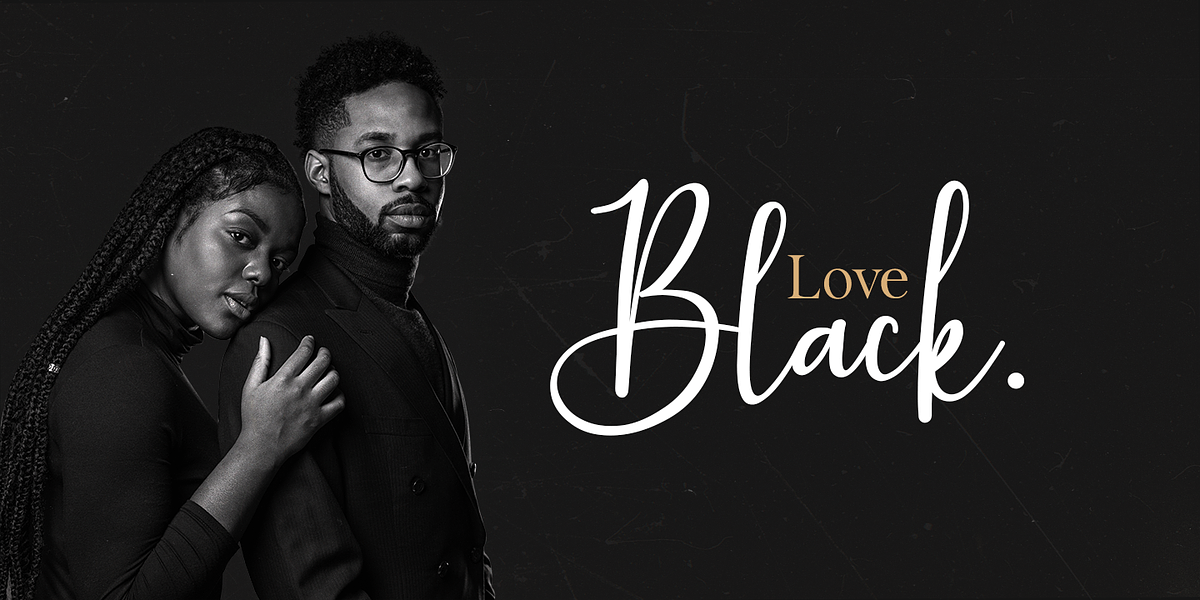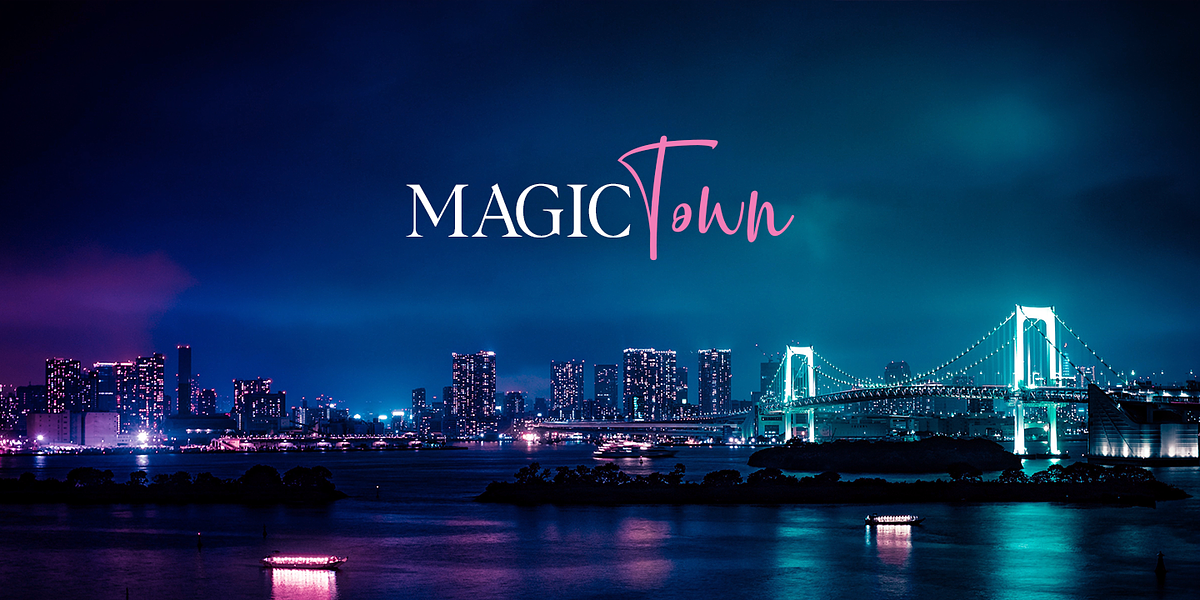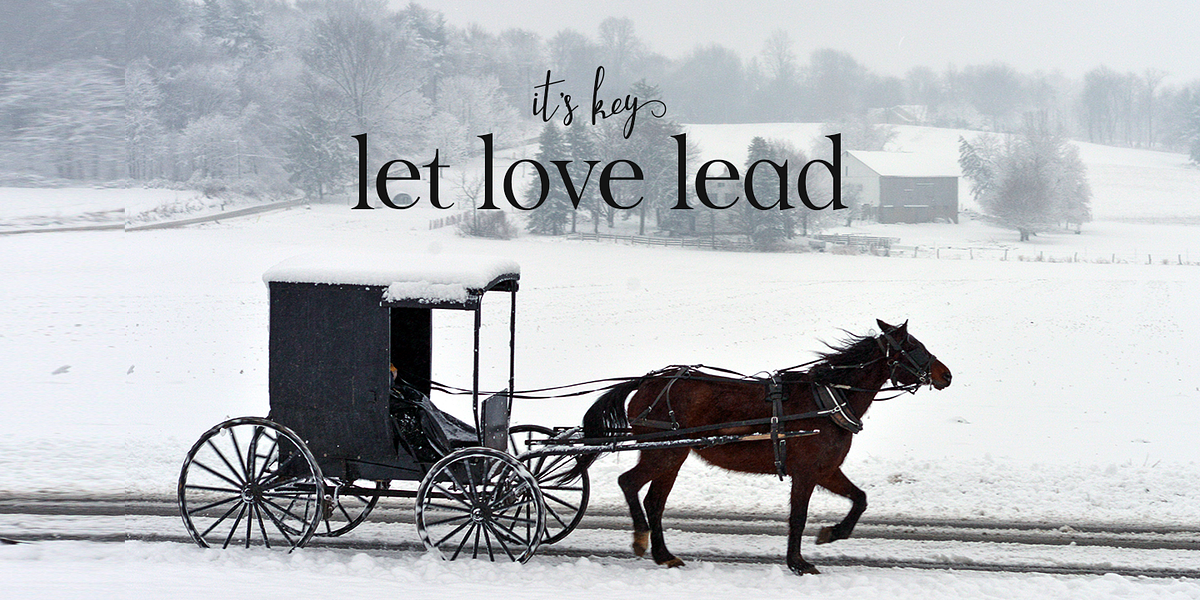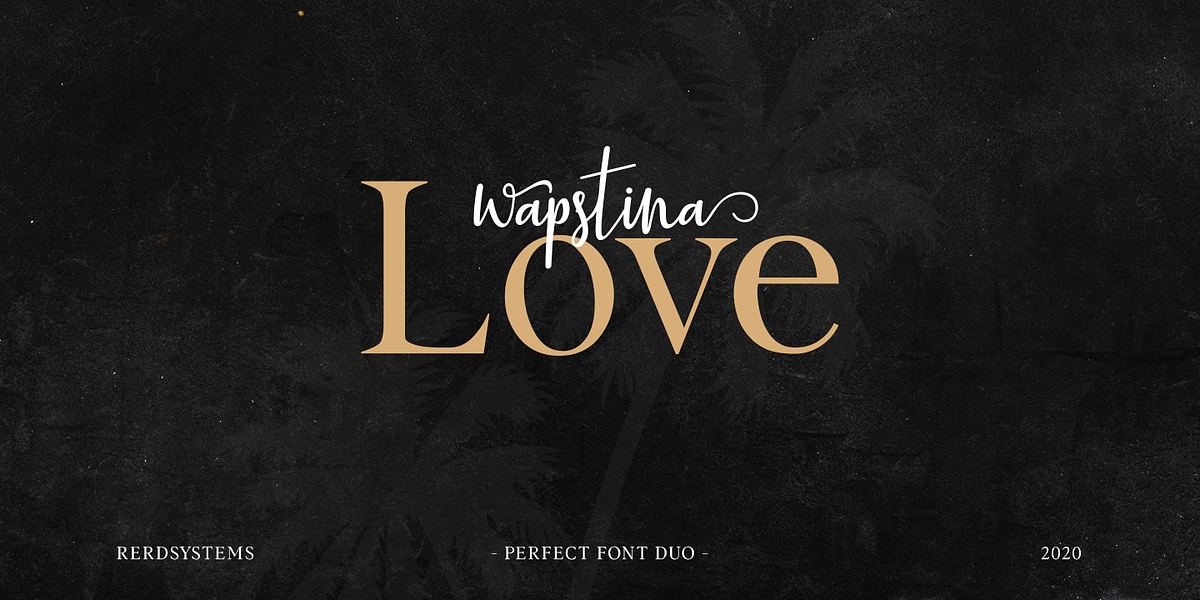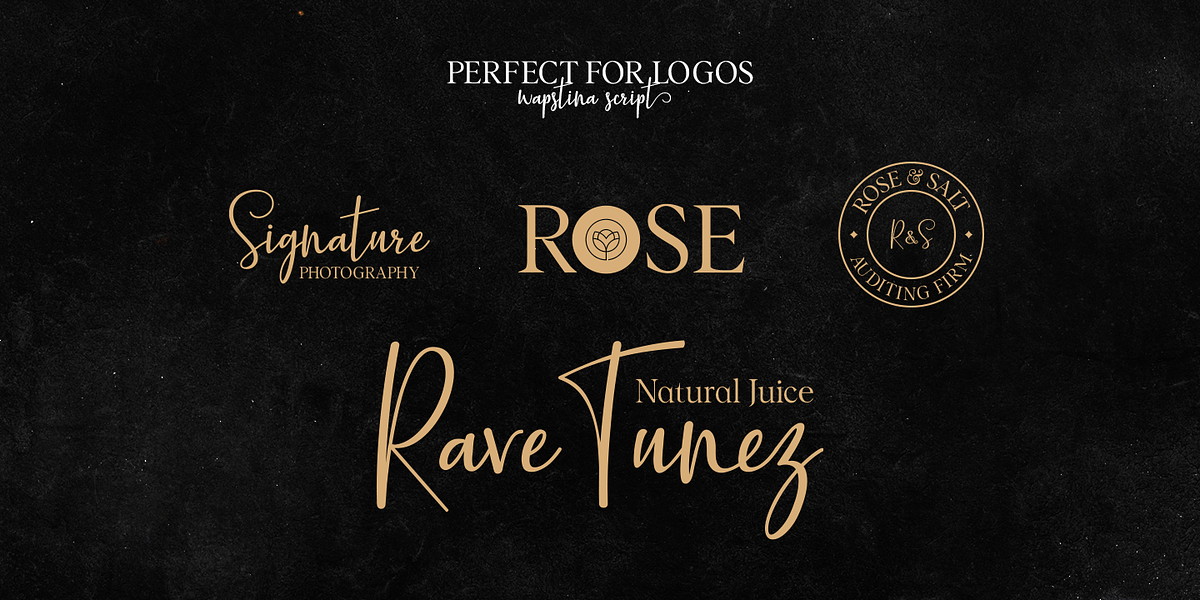
Wapstina Love
Wapstina Love is a modern calligraphy duo font that blends stylish calligraphic script with a classic serif typeface. Its unique ligatures add a touch of elegance and personality, making it perfect for various applications such as branding, logos, invitations, social media graphics, and even wedding cards. The combination of the two styles creates a versatile and visually appealing font suitable for both formal and informal contexts.